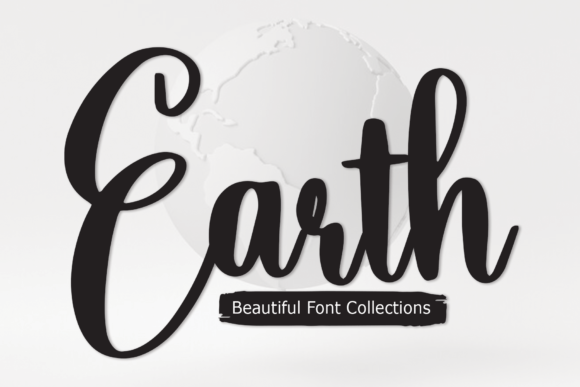
Earth and Earth: A Typeface for Timeless Elegance
The Role of Handwritten Fonts in Modern Visual Design
Typography is a cornerstone of visual communication, directly influencing tone, readability, and brand perception. While sans-serifs convey modernity and serifs suggest tradition, a carefully crafted handwritten font like Earth and Earth introduces a layer of authenticity and approachability. It moves beyond mere text to become an active element in the design's narrative, helping to establish a distinct brand identity that resonates on a personal level. In an era where consumers value connection, this font helps brands feel more human and relatable.Practical Applications Across Creative Projects
- Branding and Logo Design: Ideal for boutique businesses, lifestyle brands, and creative studios looking to project artisanal quality and care.
- Marketing Materials: Elevates thank you cards, invitation suites, and special edition packaging, making customers feel valued.
- Social Media Content: Adds a distinctive flair to quotes, announcements, and story graphics, boosting engagement in a crowded feed.
- Website and UI Design: Use strategically for headings, pull quotes, or hero text to create focal points that guide user attention.
- Editorial and Packaging Design: Perfect for book titles, magazine features, and product labels that aim for a curated, high-end aesthetic.
Integrating Earth and Earth into Your Design Workflow
- Visual Hierarchy: Pair it with a clean, simple sans-serif for body text. The contrast will make your headlines pop while maintaining excellent readability for longer content.
- Color Palette: The font’s elegance is amplified by a restrained color scheme. Consider deep neutrals, muted pastels, or a single bold accent color for a sophisticated look.
- Scalability and Readability: Always test the font at various sizes. Its charm is best preserved when used for larger display text; ensure smaller applications remain legible.
- Audience and Context: Align the font's personality with your brand voice and target audience. It excels in contexts that value creativity, luxury, or personal connection.